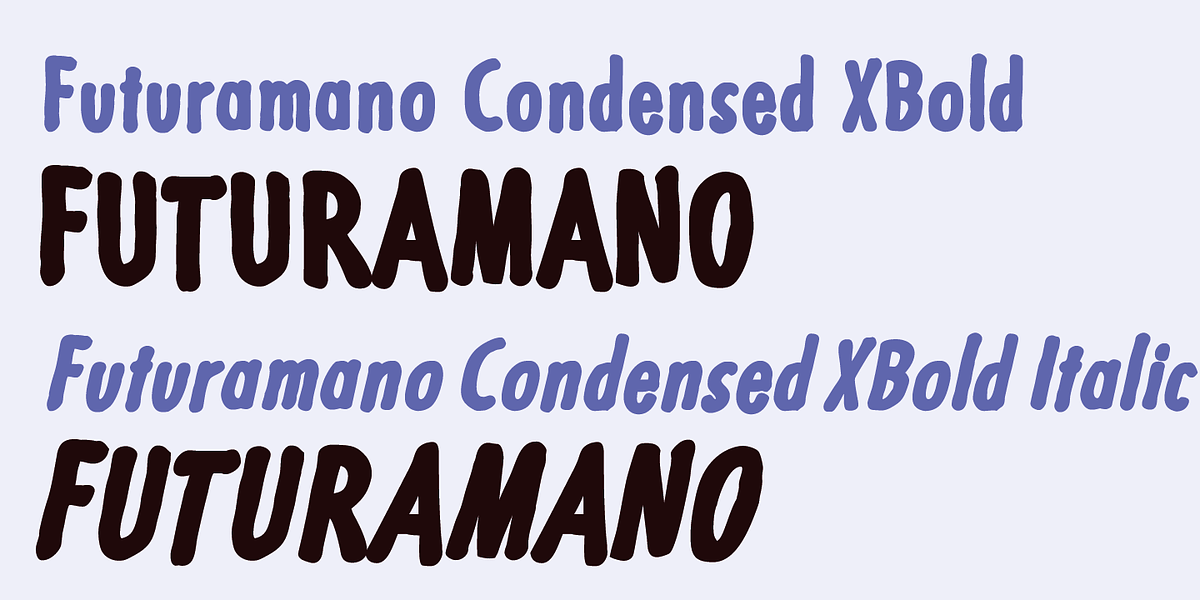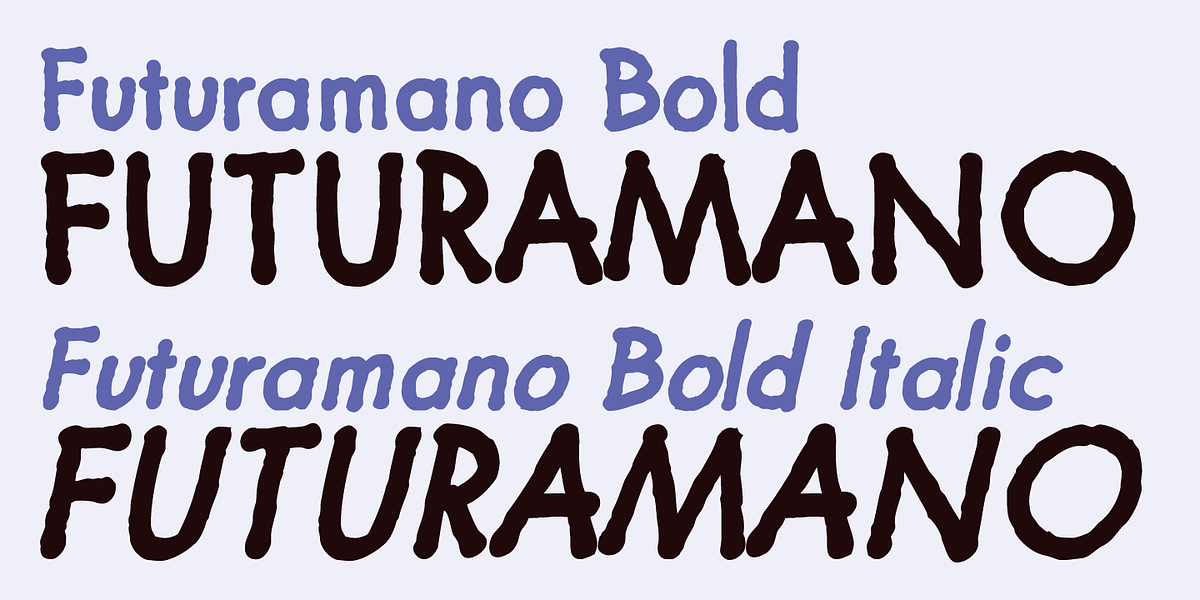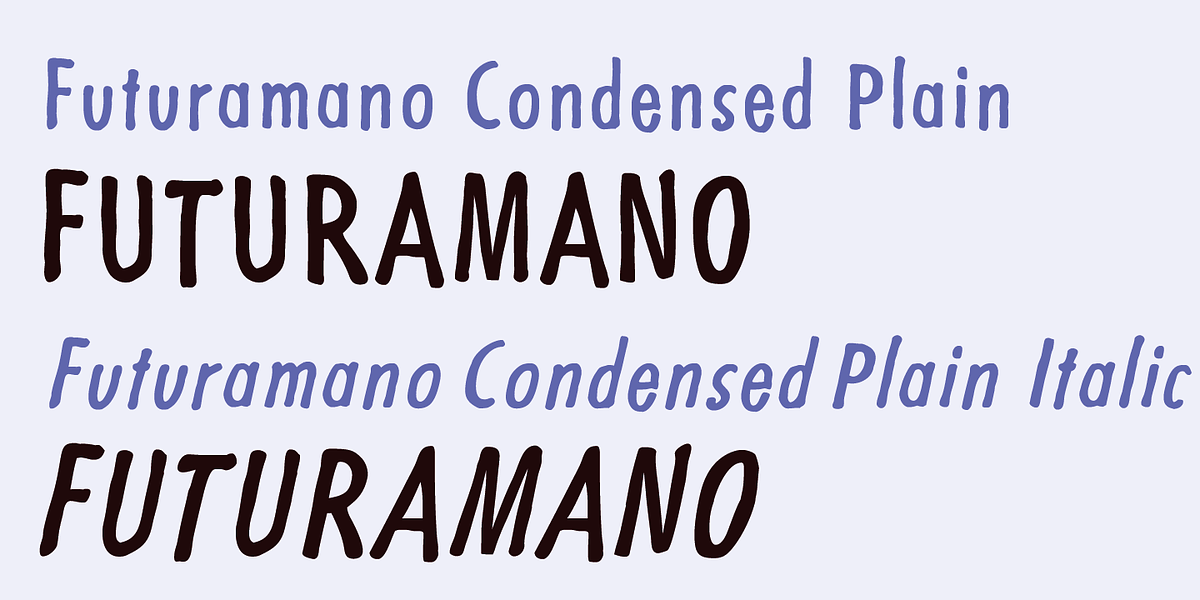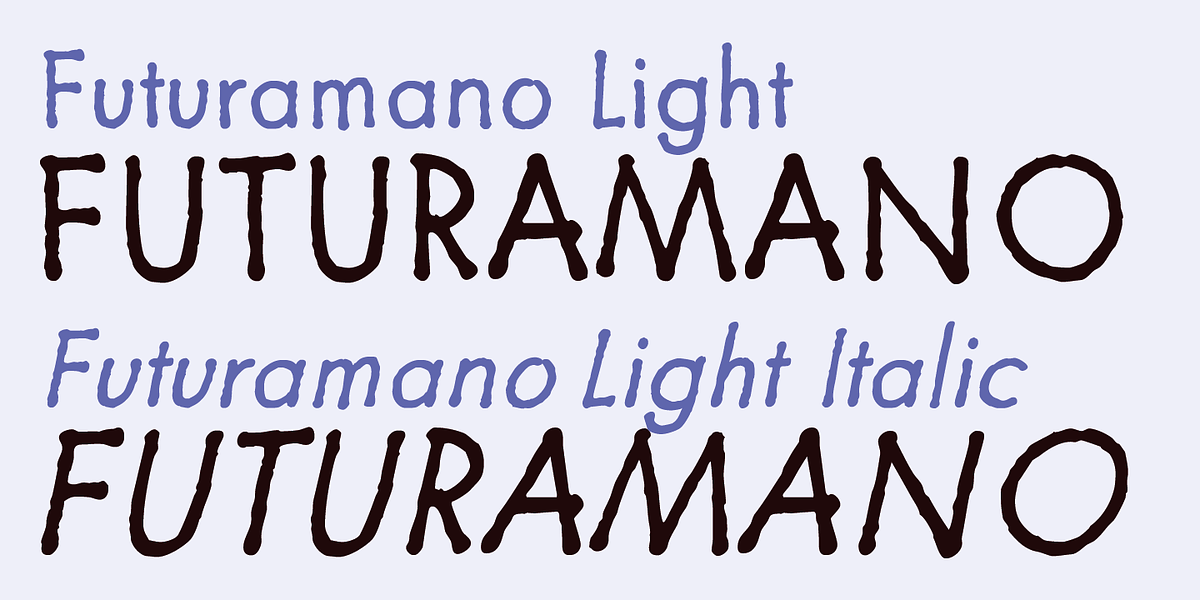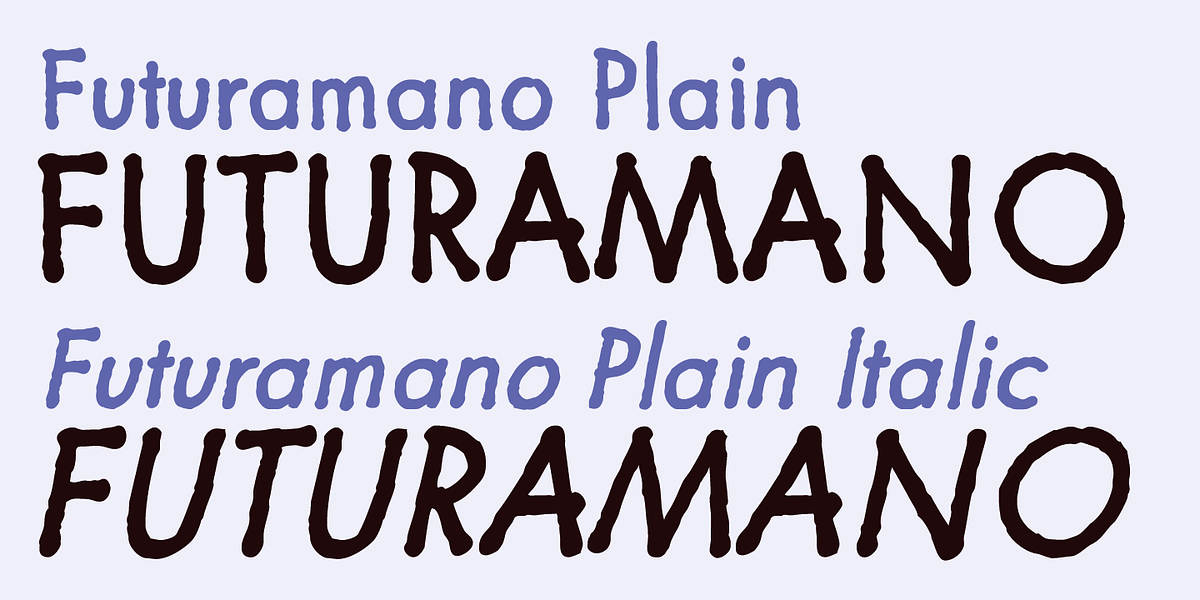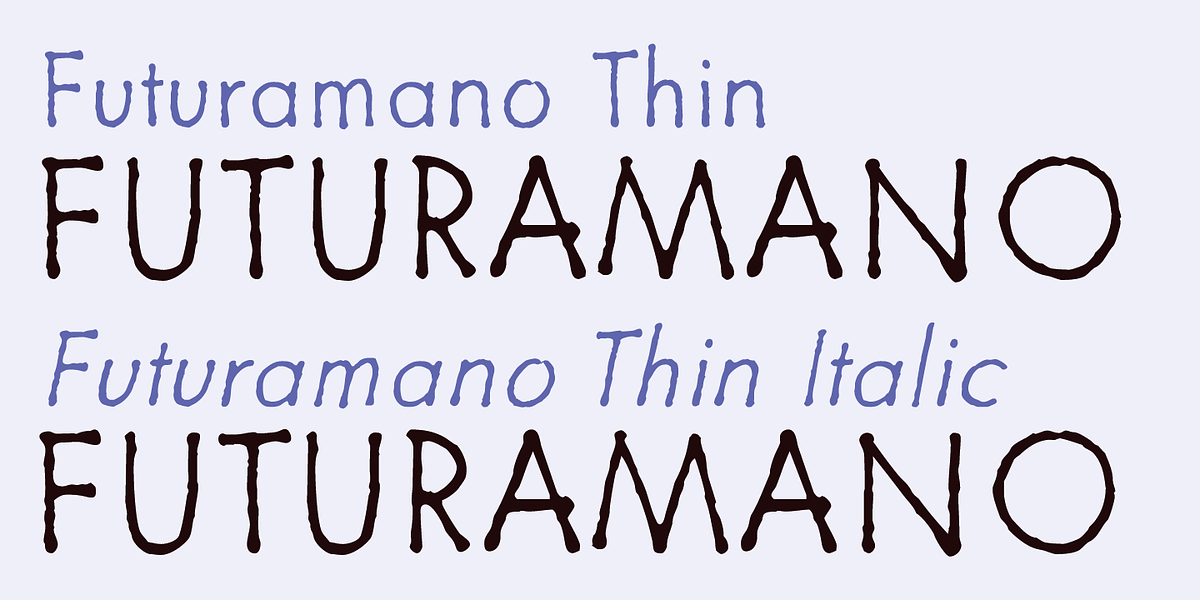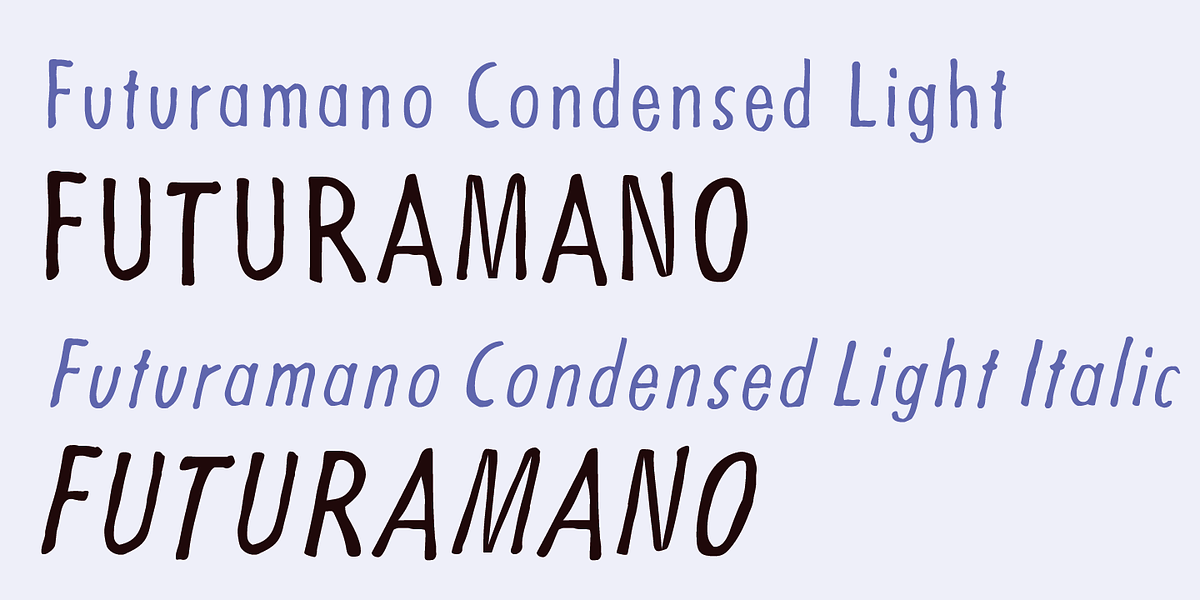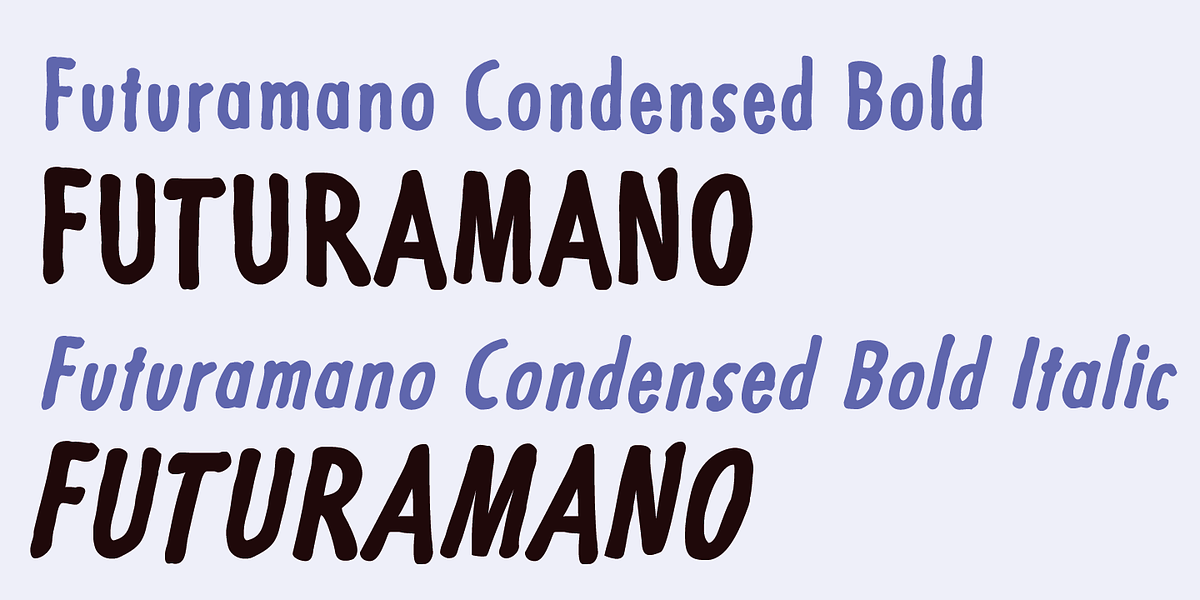
Futuramano
This handwritten typeface draws inspiration from the classic Futura font. Its rounded edges lend a more casual and approachable feel compared to the original, making it suitable for branding materials or illustrations that require a handcrafted touch.